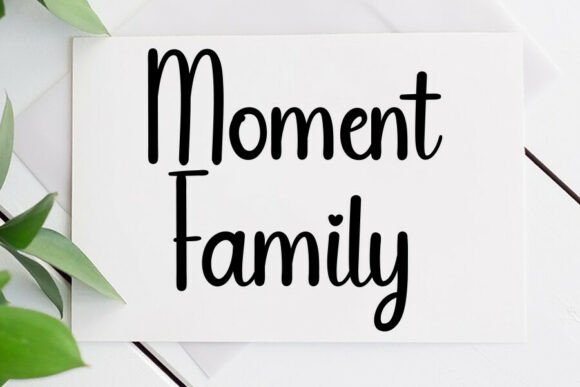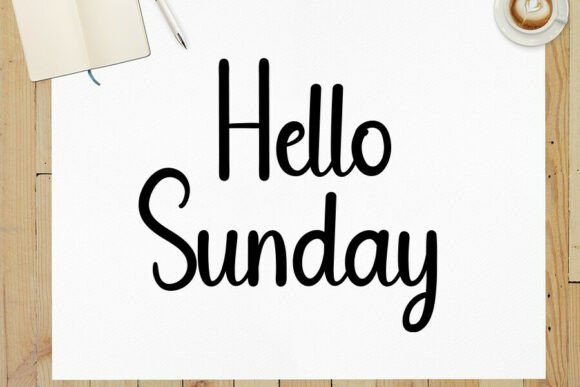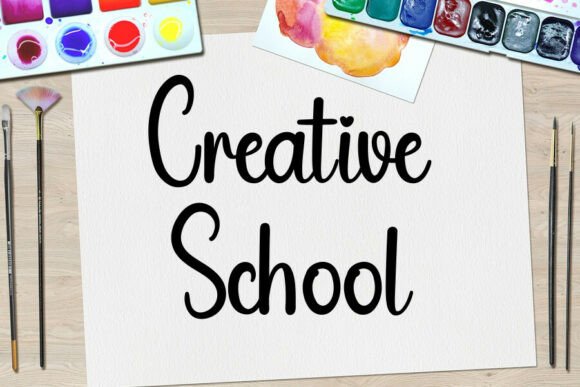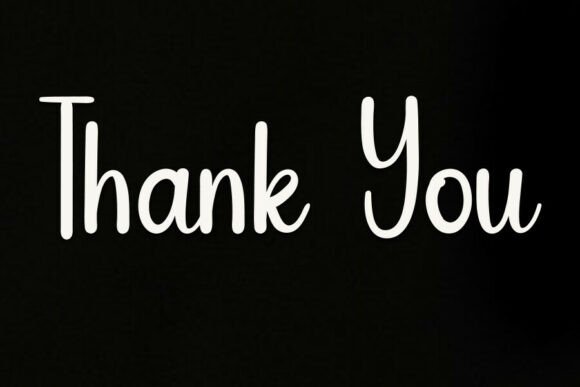
Introducing California Font: Elevate Your Designs with Elegance
Are you a designer or crafter looking for a font that exudes style and sophistication? Look no further than the California Font, a stunning handwritten font that is sure to elevate your designs to the next level. With its elegant and refined aesthetic, this font is perfect for a variety of projects, from wedding invitations and greeting cards to logos and business cards.
A Font that Exudes Elegance and Sophistication
The California Font is a beautifully crafted handwritten font that boasts an incredibly elegant and stylish appearance. Its refined lines and curves make it perfect for designs that require a touch of sophistication and glamour. Whether you’re creating wedding invitations, thank you cards, or quotes, this font is sure to make your designs stand out from the crowd.
One of the best things about the California Font is its versatility. This font can be used for a wide range of design projects, including:
• Thank you cards and greeting cards
• Quotes and posters
• Logos and branding materials
• Business cards and letterheads
• and many more!
With the California Font, you can add a touch of elegance and sophistication to any design project, making it perfect for designers and crafters who want to create beautiful and professional-looking designs.
The California Font is PUA (Private Use Area) encoded, which means that you can access all of the glyphs and alternates with ease. This makes it easy to customize your designs and add your own personal touch. With PUA encoding, you can:
• Access a wide range of glyphs and alternates
• Customize your designs with ease
• Create unique and personalized designs
Why Choose the California Font?
So why choose the California Font for your design projects? Here are just a few reasons:
• Elegance and sophistication: The California Font exudes elegance and sophistication, making it perfect for designs that require a touch of glamour.
• Versatility: This font can be used for a wide range of design projects, making it a great addition to any designer’s toolkit.
• Easy to use: The California Font is PUA encoded, making it easy to access all of the glyphs and alternates.
• High-quality design: This font is beautifully crafted, with refined lines and curves that make it perfect for professional-looking designs.
Font Name California Font
Author cans studio
If you’re looking for a font that exudes elegance and sophistication, look no further than the California Font. With its refined aesthetic and versatility, this font is perfect for designers and crafters who want to create beautiful and professional-looking designs. Whether you’re creating wedding invitations, logos, or business cards, the California Font is sure to elevate your designs to the next level.